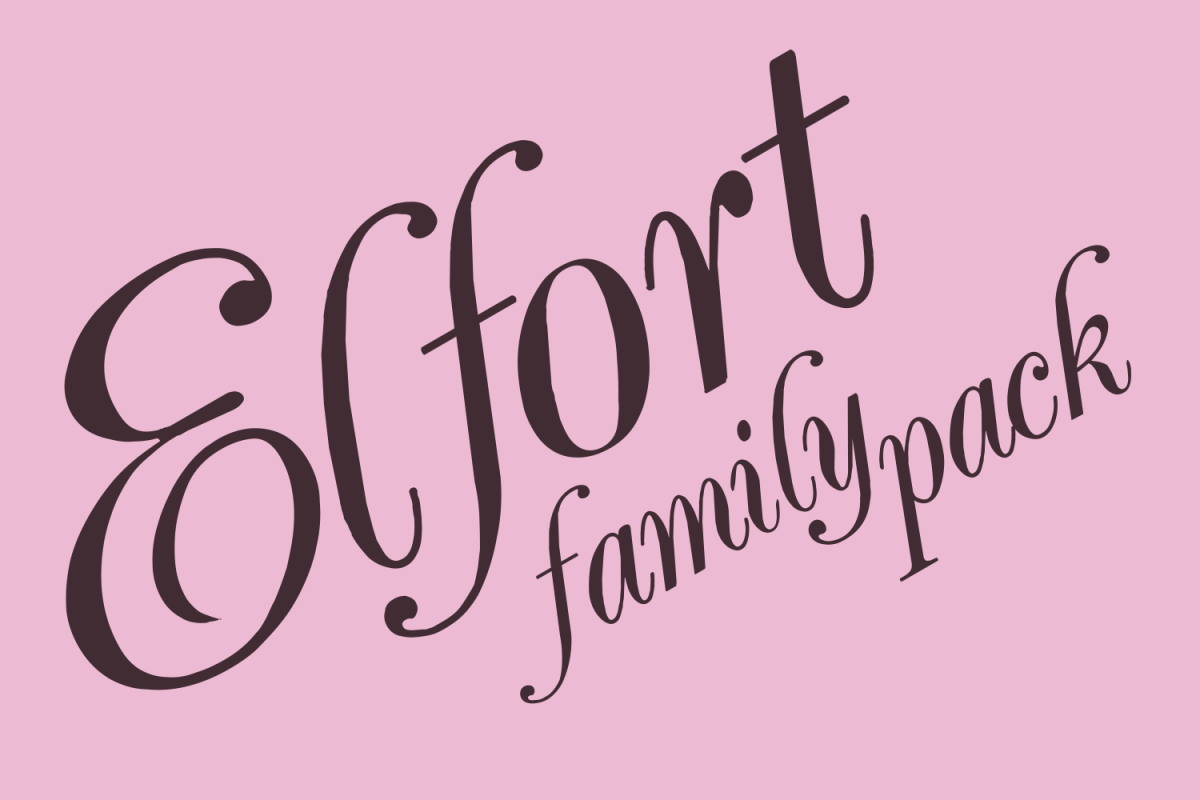
Elfort family pack
A lovely script face remastered from found drawings, great for antique, vintage and romantic designs. This font support the follow languages (between others) Albanian, Danish, Dutch, English, Estonian, Faroese, French, German, Icelandic, Italian, Malagasy, Norwegian, Portuguese, Spanish, Swedish. Three styles in the pack.